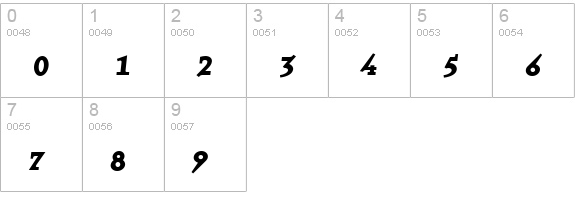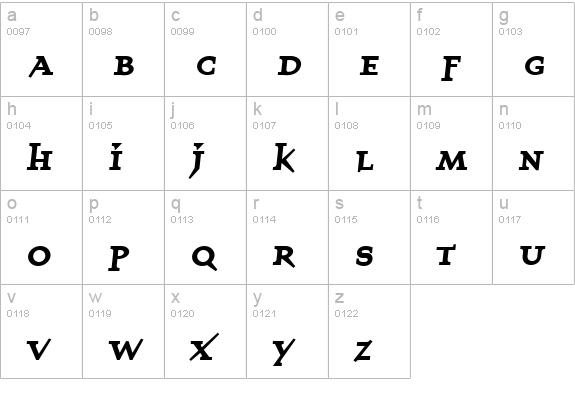
QuartetFractions-Bold Font Details
QuartetFractions-Bold is a strong, high-contrast variant in the QuartetFractions typeface family \xE2\x80\x94 well suited to headlines, attention-grabbing titles, and strong calls-to-action.
QuartetFractions-Bold is a captivating and dynamic font that brings a touch of elegance and sophistication to any project. With its bold and confident letterforms, this font demands attention and makes a bold statement. What sets QuartetFractions-Bold apart is its unique ability to seamlessly blend modernity with classic design elements. The sharp and sleek lines of each character are balanced by subtle curves and flourishes, creating a harmonious and visually striking composition. Designed with versatility in mind, QuartetFractions-Bold is perfect for a wide range of applications. Whether used for headlines, logos, invitations, or any other creative endeavor, this font truly shines. It exudes confidence and professionalism, making it ideal for both digital and print media. One of the most appealing aspects of QuartetFractions-Bold is that it is freely available to download at FontsMarket.com. This means that you can add this remarkable font to your collection without any hassle or cost. Embrace the beauty and power of QuartetFractions-Bold and elevate your designs to a whole new level of sophistication.